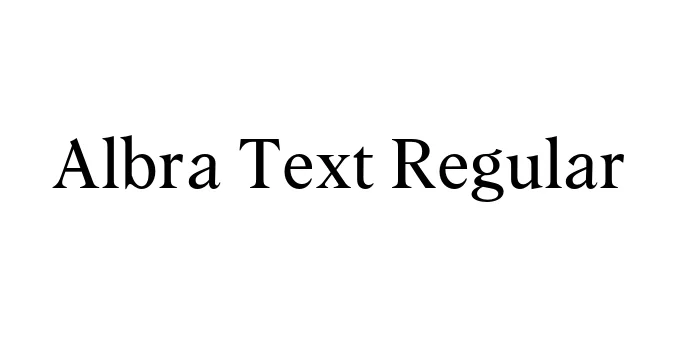
Albra Text Regular
Designed by Valerio Dell'Edera (Bumblebee Type)
Albra Text Regular is a sophisticated serif typeface designed by Valerio Dell’Edera under the Bumblebee Type foundry. It represents a refined evolution within the Albra superfamily, specifically engineered to excel in body text applications where legibility and elegance are paramount. With its balanced proportions, open apertures, and moderate contrast, this font ensures a comfortable reading experience across both high-resolution digital screens and traditional print media.
The aesthetic of Albra Text draws inspiration from classic transitional serifs but incorporates contemporary nuances that make it feel fresh and modern. It is widely praised by designers for its versatility in editorial environments, ranging from literary journals to high-fashion magazines. Its timeless character allows it to pair seamlessly with minimalist sans-serifs, making it a powerful tool for comprehensive branding and sophisticated corporate identities.
Albra Text Regular Best Uses
Ideal for magazines, books, and long-form storytelling.
Suitable for professional brand materials and elegant stationary.
Optimized for readability in digital blogs and high-end portfolios.